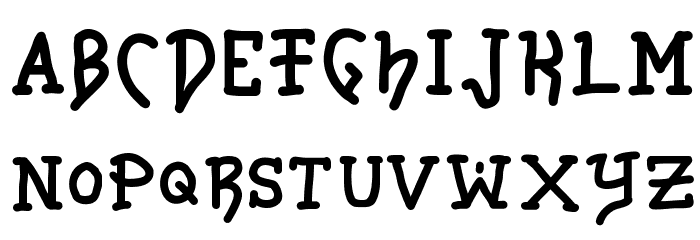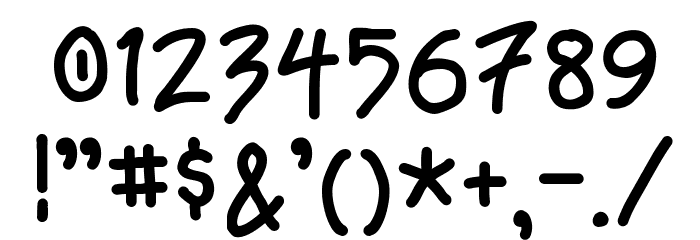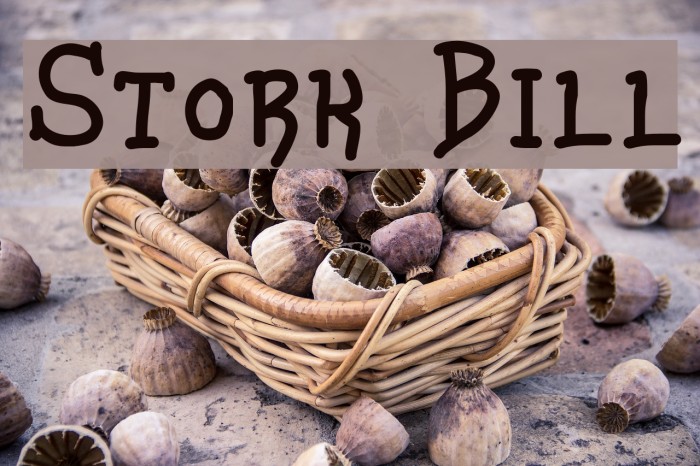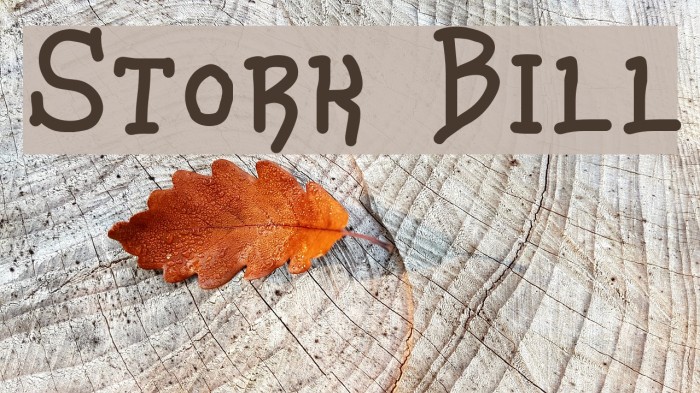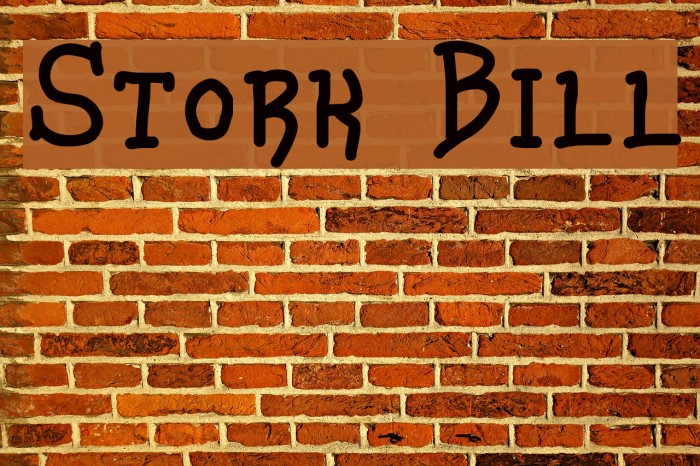
Stork Bill Font
This font features a playful and whimsical style with a handwritten appearance. The characters are bold and slightly irregular, giving them a unique and artistic flair. The strokes are thick and rounded, with a consistent weight throughout. The letters have a slight tilt, adding to the casual and informal feel. The numbers and special characters maintain the same playful aesthetic, making them suitable for creative and fun projects. The overall design is cohesive, with a consistent character width and spacing that ensures readability while maintaining its distinctive style.
A playful, handwritten-style font with bold, rounded characters.
- Proposed Projects: Ideal for children's books, greeting cards, playful branding, and creative posters.